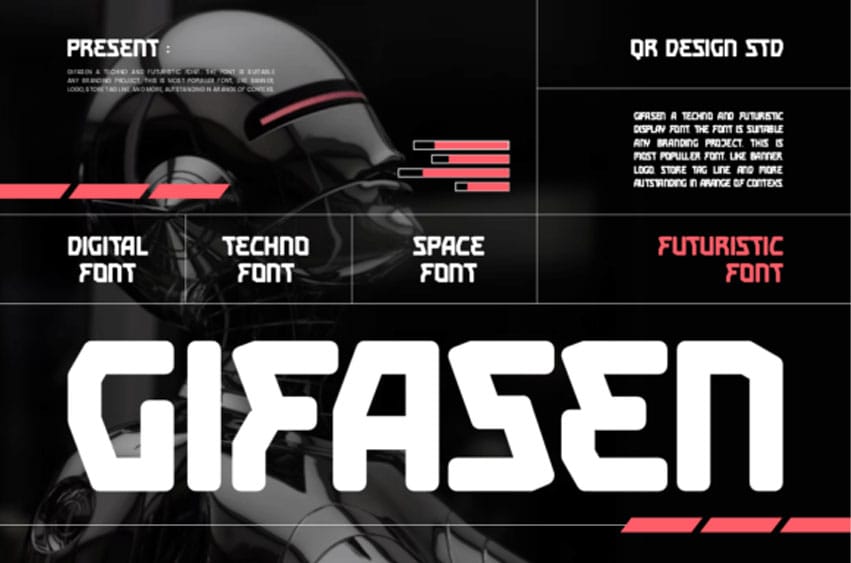
Gifasen Font is a cool display font that exudes boldness and contemporary flair. Featuring striking shapes, dynamic angles, and eye-catching details, it captures the essence of modern urban style.
Ideal for posters, logos, headlines, and social media graphics, it adds a powerful and energetic vibe to any design. With its distinctive character and strong presence, this font delivers both creativity and impact.